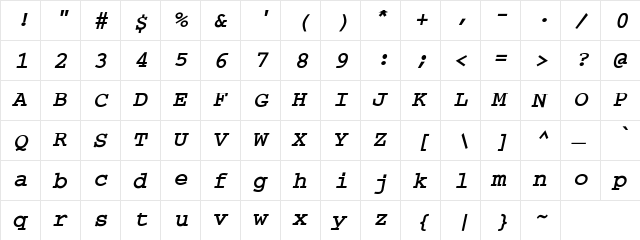
Bouvian-BoldO-a Regular
Design Context for Bouvian-BoldO-a Typeface
Bouvian-BoldO-a is a composed and adaptable typeface that performs quietly and consistently across a wide range of design contexts. Its bold stroke weight gives it real presence on the page.